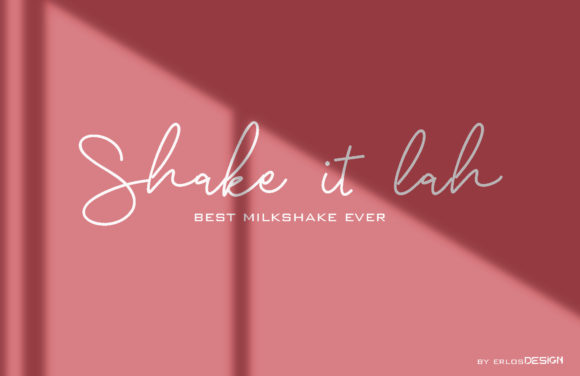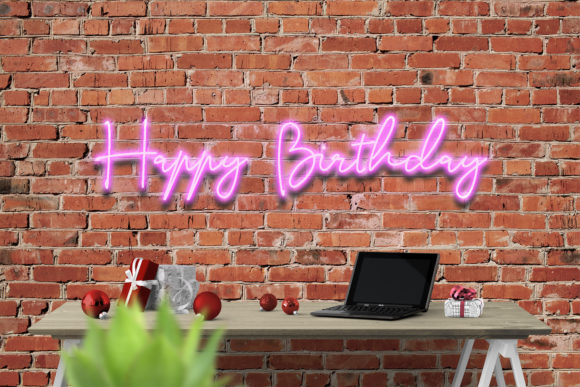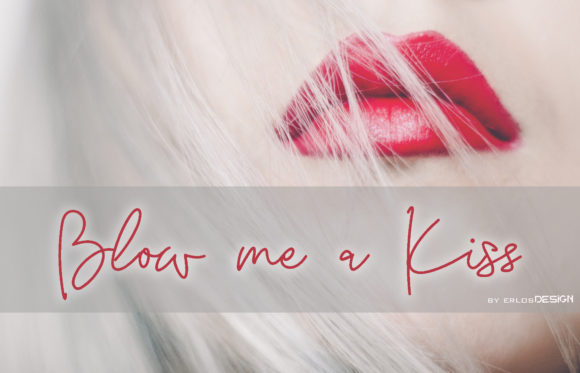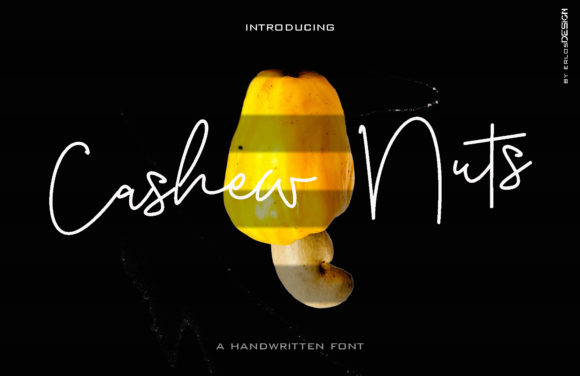
The Perfect Font for Your Next Design Project: Cashew Nuts
I’ll never forget the time I was working on a project for a client who wanted a warm and inviting feel. I had spent hours scouring the internet for the perfect font, but nothing seemed quite right. That was until I stumbled upon Cashew Nuts, a beautiful handwritten font that instantly captured the tone I was looking for. In this article, I’ll share my experience with Cashew Nuts, its features, and how to make the most of it in your designs.
A Personal Review of Cashew Nuts
- ✨ Elegant and flowing script: Cashew Nuts has a beautiful, cursive feel that’s perfect for creating elegant designs.
- ✅ Readability: The font is incredibly readable, even at smaller sizes, making it perfect for body text or captions.
- 💫 Versatility: Cashew Nuts can be used for a wide range of designs, from stationery to greeting cards, and even digital projects.
While Cashew Nuts is an amazing font, there are a few things to keep in mind:
- 🤔 Limited use of all-caps: While the font does have all-caps characters, they don’t quite have the same elegance as the lowercase letters.
- ⚠️ Some letter combinations may not work well: As with any script font, some letter combinations may not work as well as others.
The Story Behind Cashew Nuts
While the origins of Cashew Nuts are unclear, it’s believed to have been designed by a team of typographers who wanted to create a beautiful and elegant script font. Inspired by the flowing lines of handwritten scripts, Cashew Nuts is a modern take on classic typography.
Q: What type of designs is Cashew Nuts best suited for?
A: Cashew Nuts is a versatile font that can be used for a wide range of designs, from stationery to greeting cards, and even digital projects.
Q: Is Cashew Nuts available in different weights or styles?
A: While Cashew Nuts is primarily available in a single weight, it does have some stylistic alternates and glyphs that can be used to add variation to your designs.